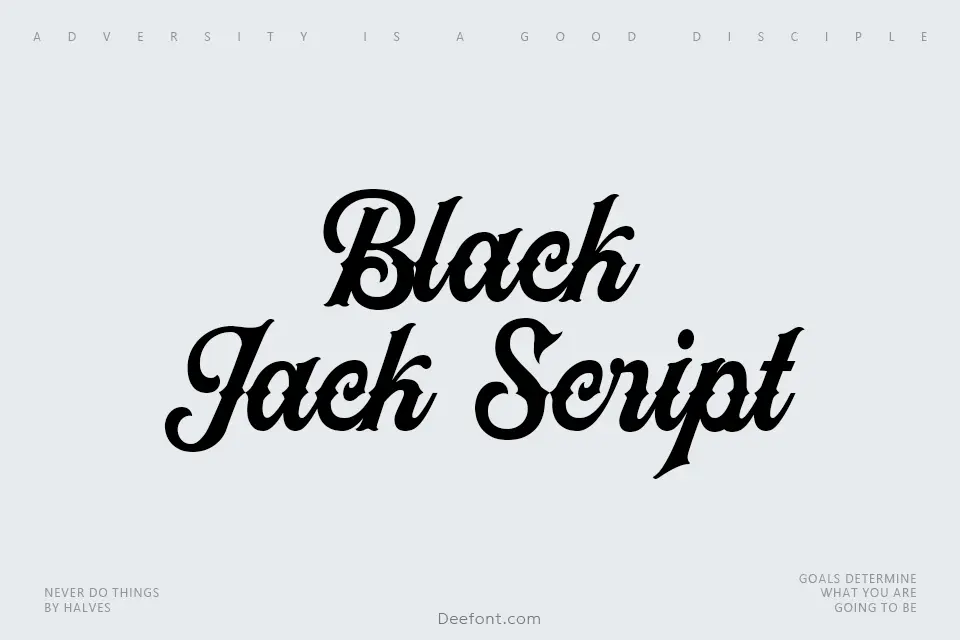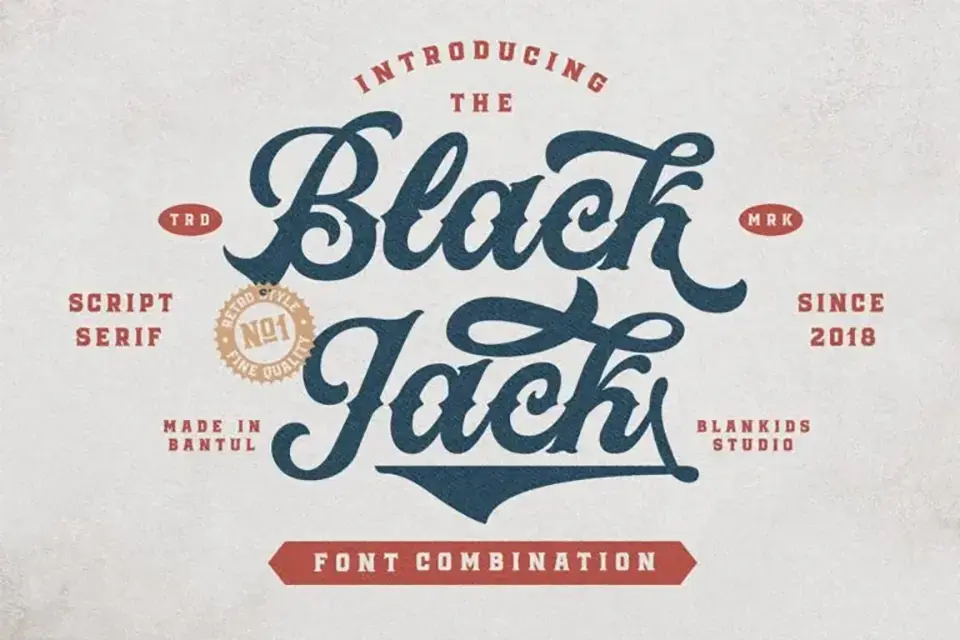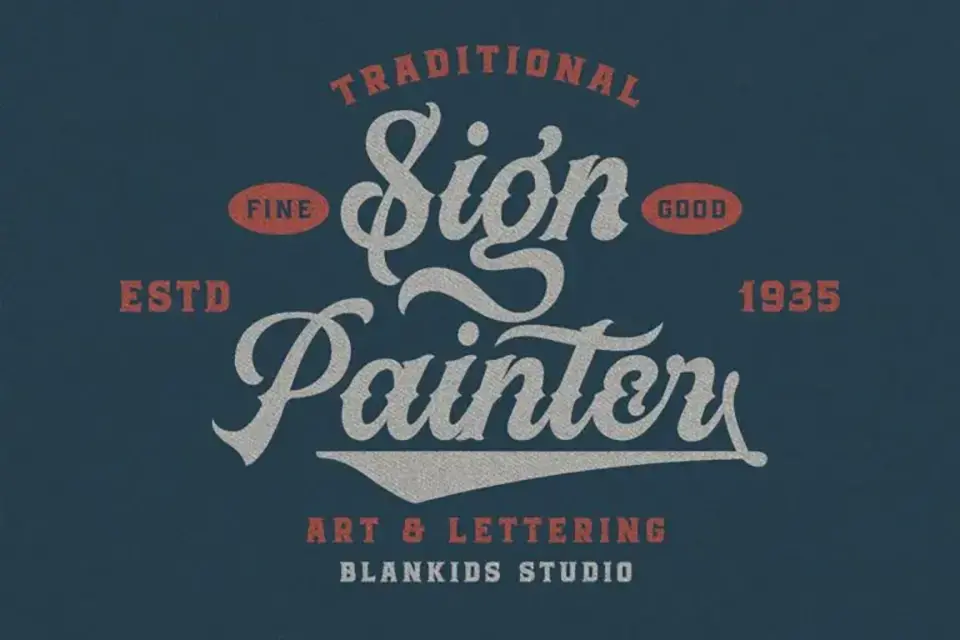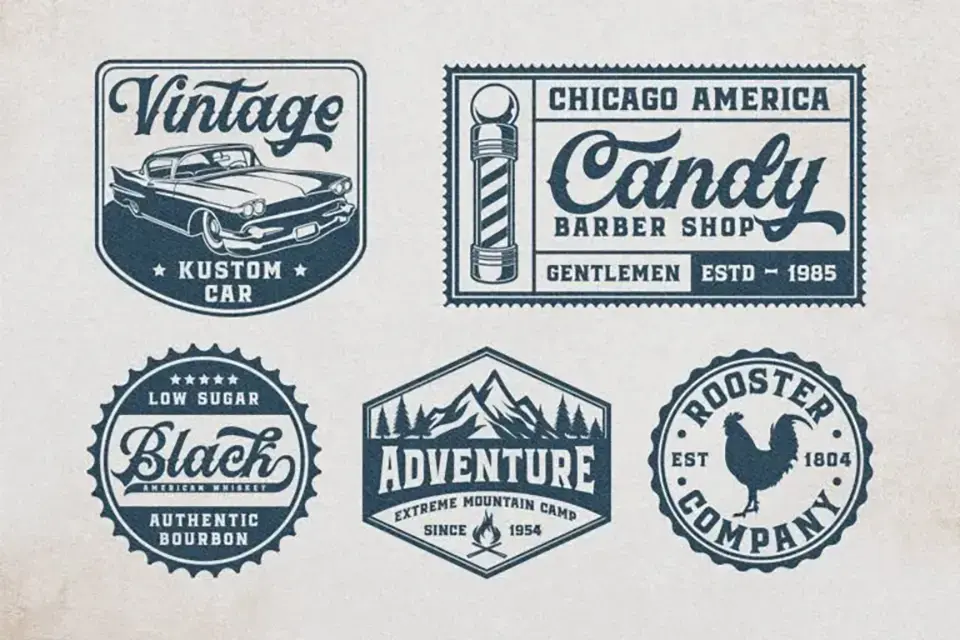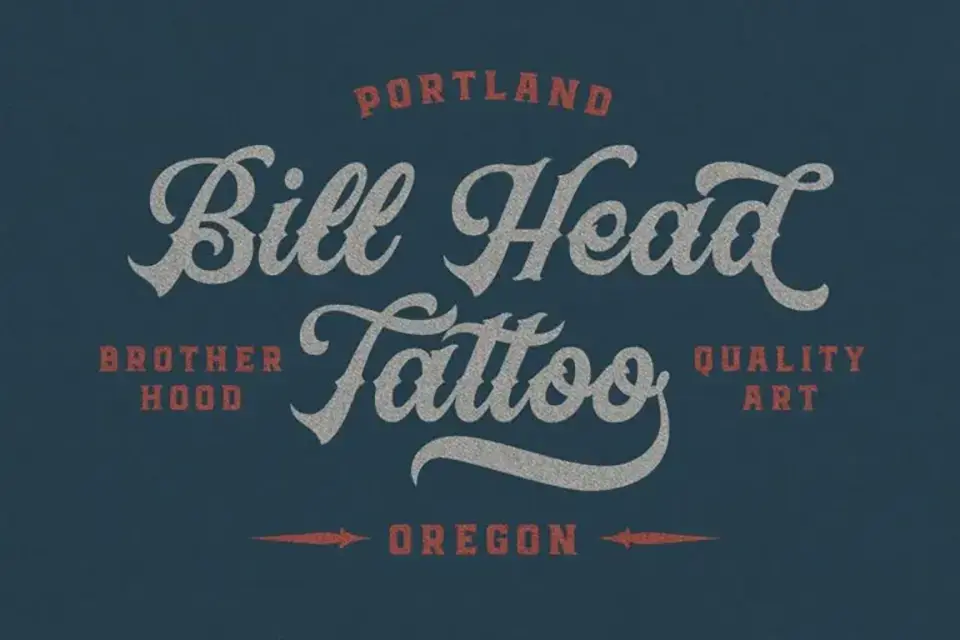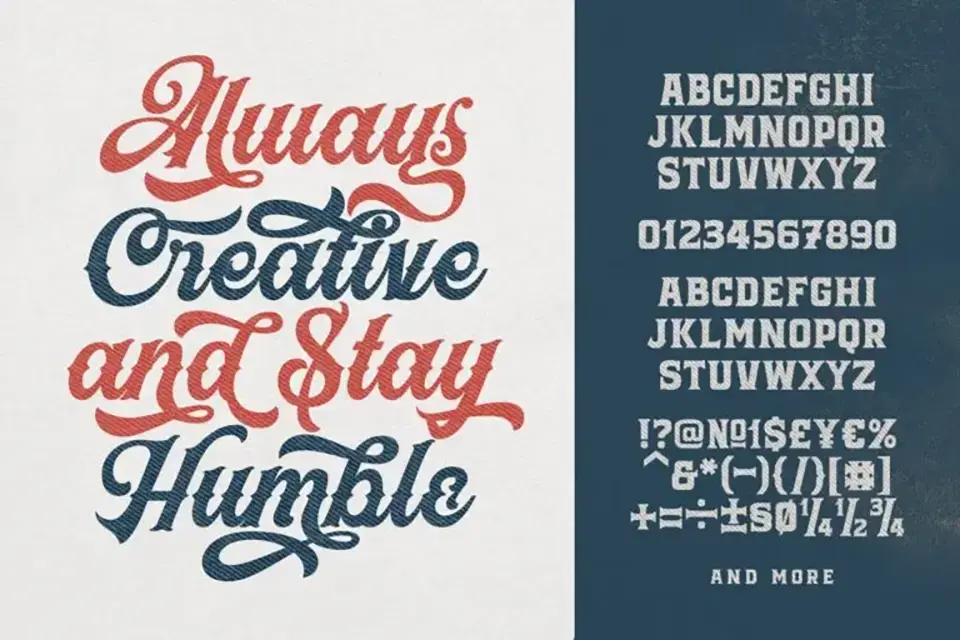
Black Jack Script Font
Black Jack Script is a distinctive modern vintage font that masterfully blends two classic styles: flowing script and bold serif letterforms. Inspired by the aesthetic of vintage tattoo designs, antique posters, badges, and period packaging, this typeface evokes nostalgia with authentic old-school character. Featuring over 400 glyphs, extensive stylistic alternatives, swashes, and ligatures, Black Jack Script delivers exceptional versatility for display typography, branding, logo design, and decorative applications. The font supports multilingual characters, making it ideal for global creative projects.